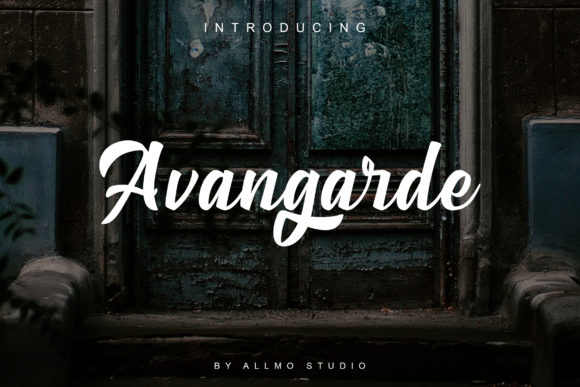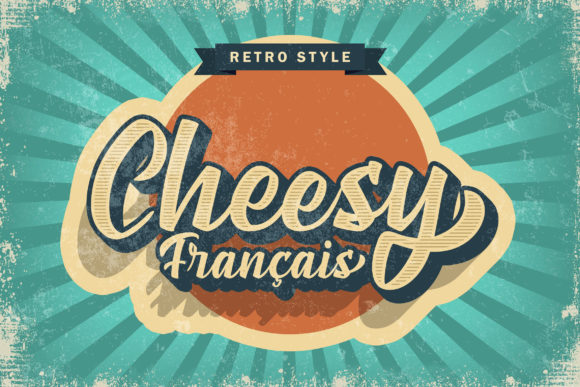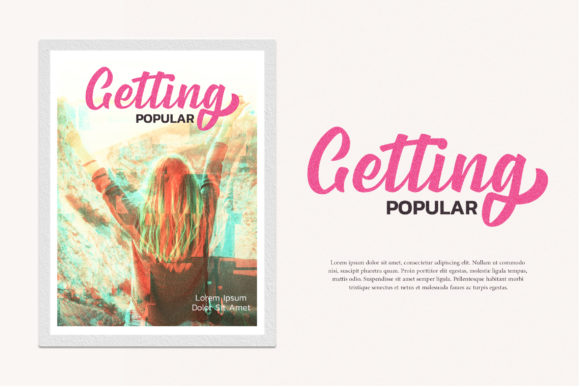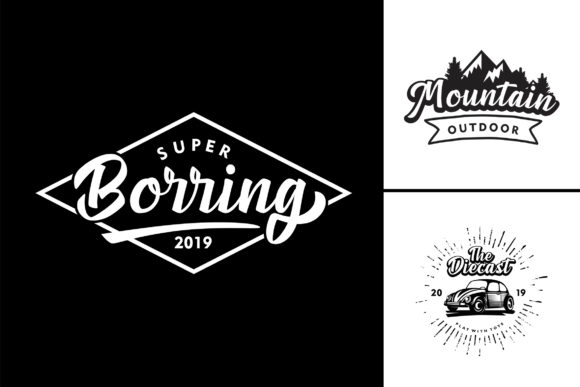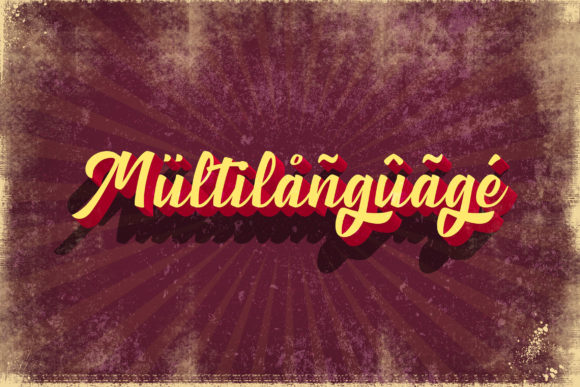
Avangarde Font
About Avangarde Font
The Avangarde is a modern typeface. It’s a combination of a script and a sans serif which gives it a vintage feel.
It’s perfect for logos, badges, shirts, labels, apparel design, etc.